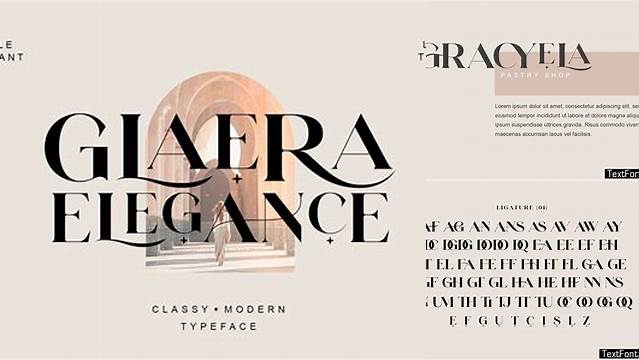
Hey guys! Are you on the hunt for a font that screams sophistication and style? Look no further! Today, we're diving deep into the world of the Glaera Elegance Font and how you can get your hands on a free download. This font is a game-changer for anyone looking to add a touch of class to their projects, whether you're a seasoned designer or just starting out. We'll explore everything from what makes Glaera so special, where to snag your free copy, and how to use it to create stunning visuals. So, buckle up, because we're about to embark on a typography adventure!
What Makes the Glaera Elegance Font So Special?
Alright, let's talk about what makes Glaera Elegance Font stand out from the crowd. This isn't just any font; it's a carefully crafted typeface designed to exude grace and refinement. Its sleek lines and elegant curves make it perfect for a wide range of applications, from branding and logos to website design and print materials. Think about it: a well-chosen font can make or break a design. It sets the tone, conveys a message, and captures the attention of your audience. Glaera does all of this with effortless style. It's like the little black dress of fonts – always appropriate and always chic. The versatility of Glaera is also a huge plus. It works beautifully in both headlines and body text, ensuring a cohesive and polished look across all your designs. Whether you're creating a sophisticated invitation, a professional presentation, or a stylish social media post, Glaera has got you covered. Plus, the attention to detail in its design is evident. Each letter is meticulously crafted, ensuring a seamless and visually pleasing experience. This attention to detail is what sets Glaera apart and makes it a true gem in the world of typography. The kerning, the spacing, the overall balance – it’s all just chef’s kiss. So, when you're looking for a font that makes a statement without being over the top, Glaera Elegance Font is your go-to choice.
This font is especially great for projects that demand a touch of luxury or a hint of understated beauty. Consider using it for high-end product packaging, fashion blogs, or luxury travel websites. The clean and modern aesthetic of Glaera ensures that your message is delivered with clarity and impact. Another great thing about Glaera Elegance Font is its ability to adapt to different color palettes and design styles. Whether you prefer a minimalist approach or a more elaborate design, Glaera will always find its place. This flexibility allows you to create unique and visually compelling designs that reflect your brand's personality. Also, it’s important to mention that the font’s readability is excellent, even in smaller sizes. This makes it an ideal choice for projects where legibility is key, such as website navigation menus or fine-print disclaimers. In essence, Glaera Elegance Font is more than just a font; it's a tool that empowers you to create designs that are both beautiful and functional. It's a statement of elegance and sophistication that will elevate your projects to a whole new level.